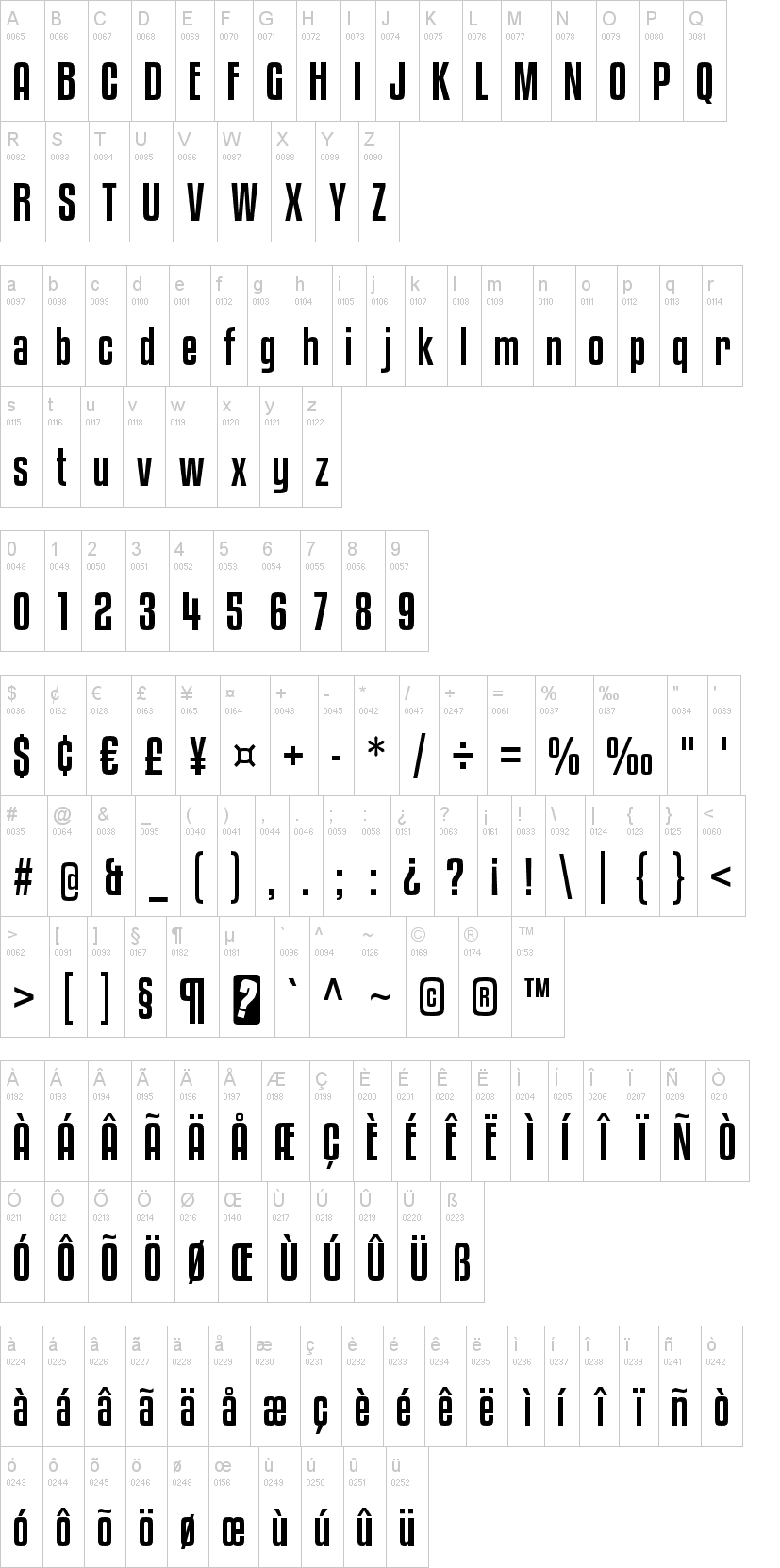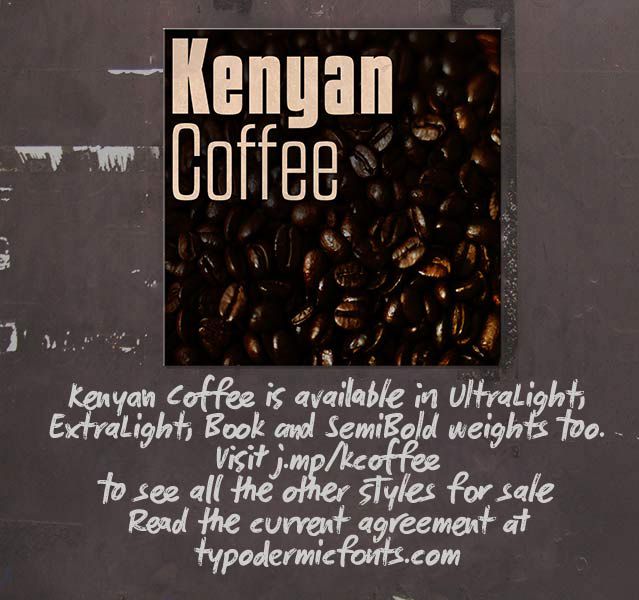
Шрифт Kenyan Coffee
Kenyan Coffee is a narrow headline typeface created in 1999. In 2011, Kenyan Coffee was rebuilt and expanded into a larger font family. Don't forget to read the files inside the zip for details. Updated in 2012.